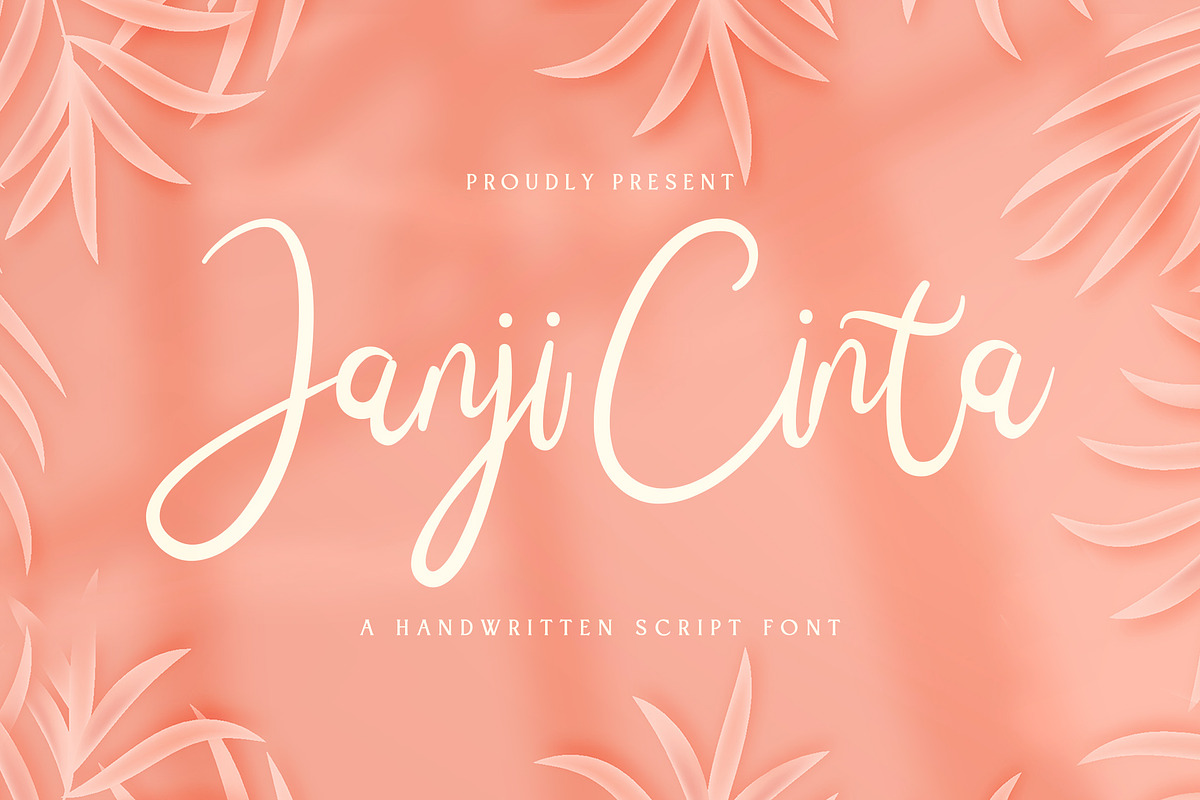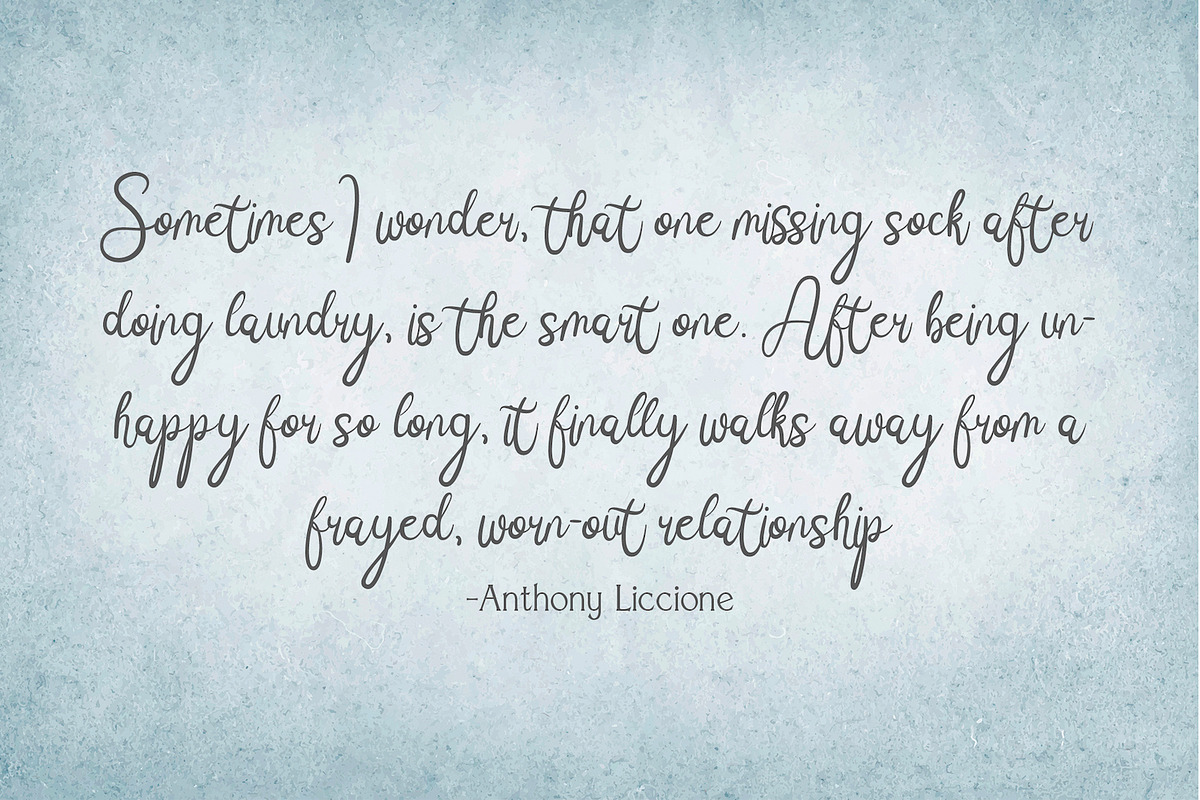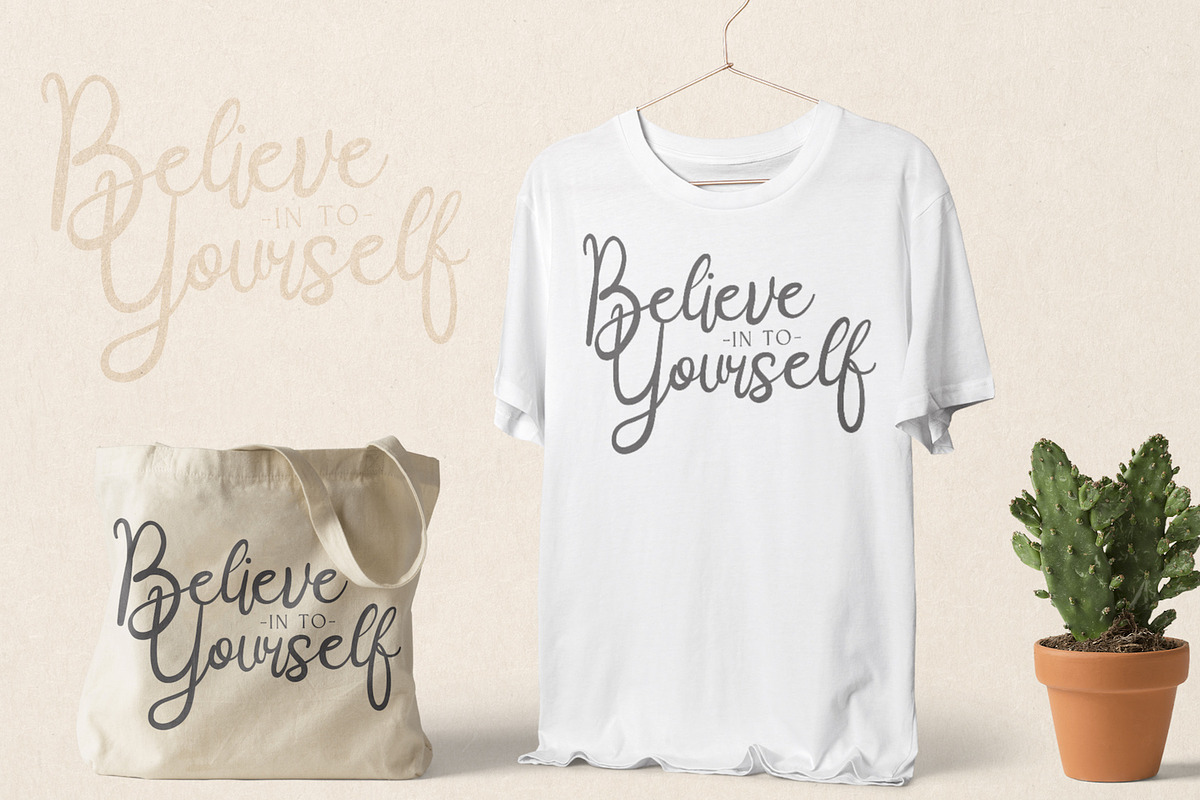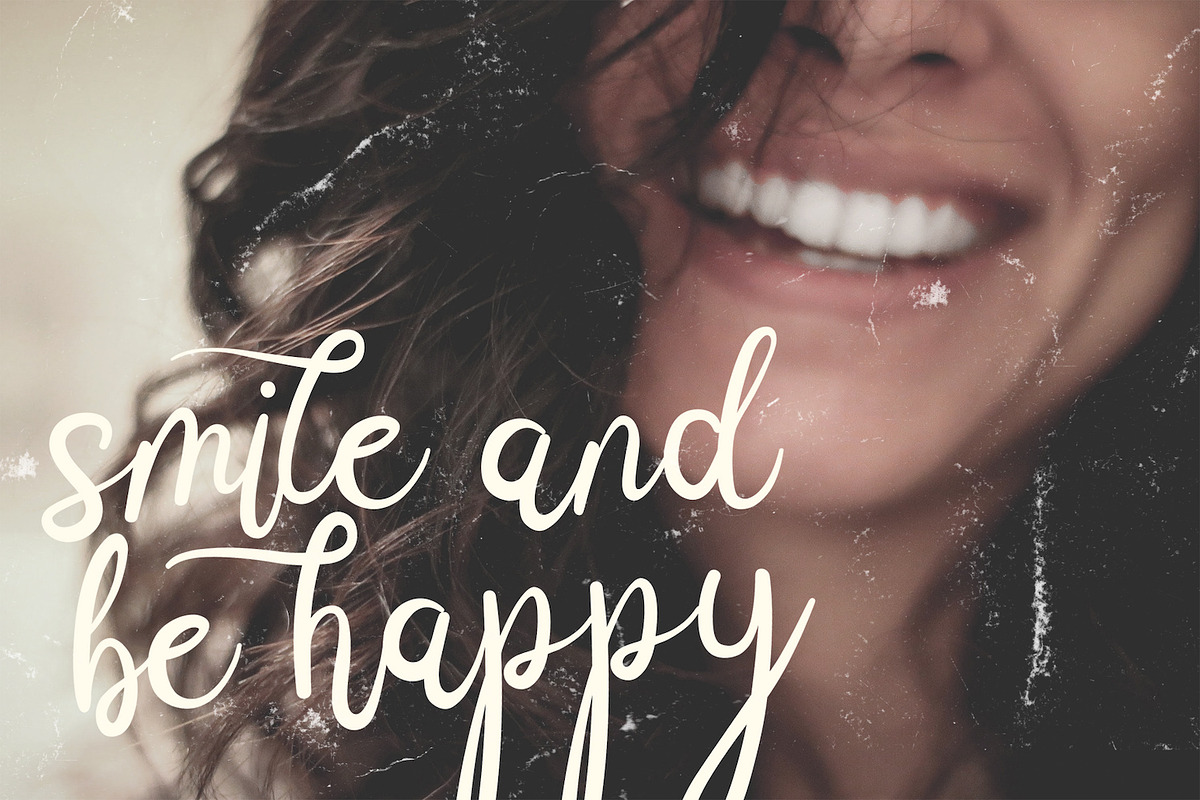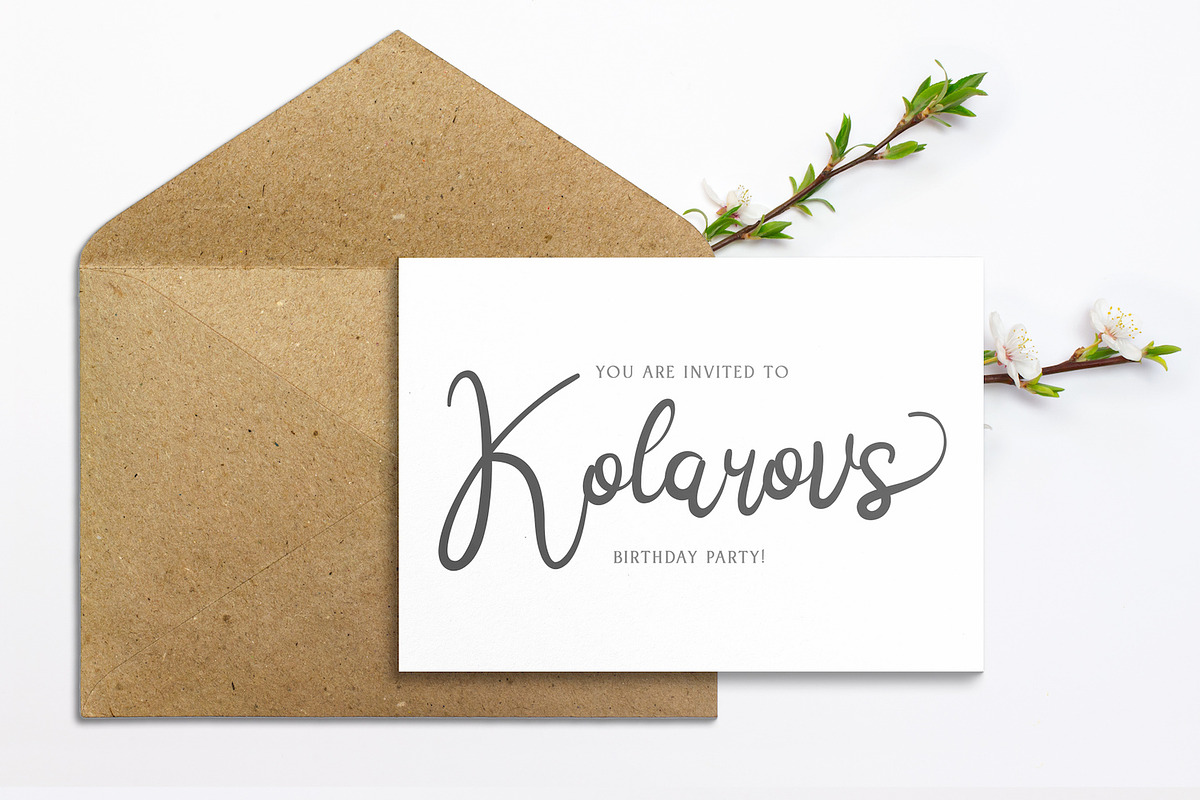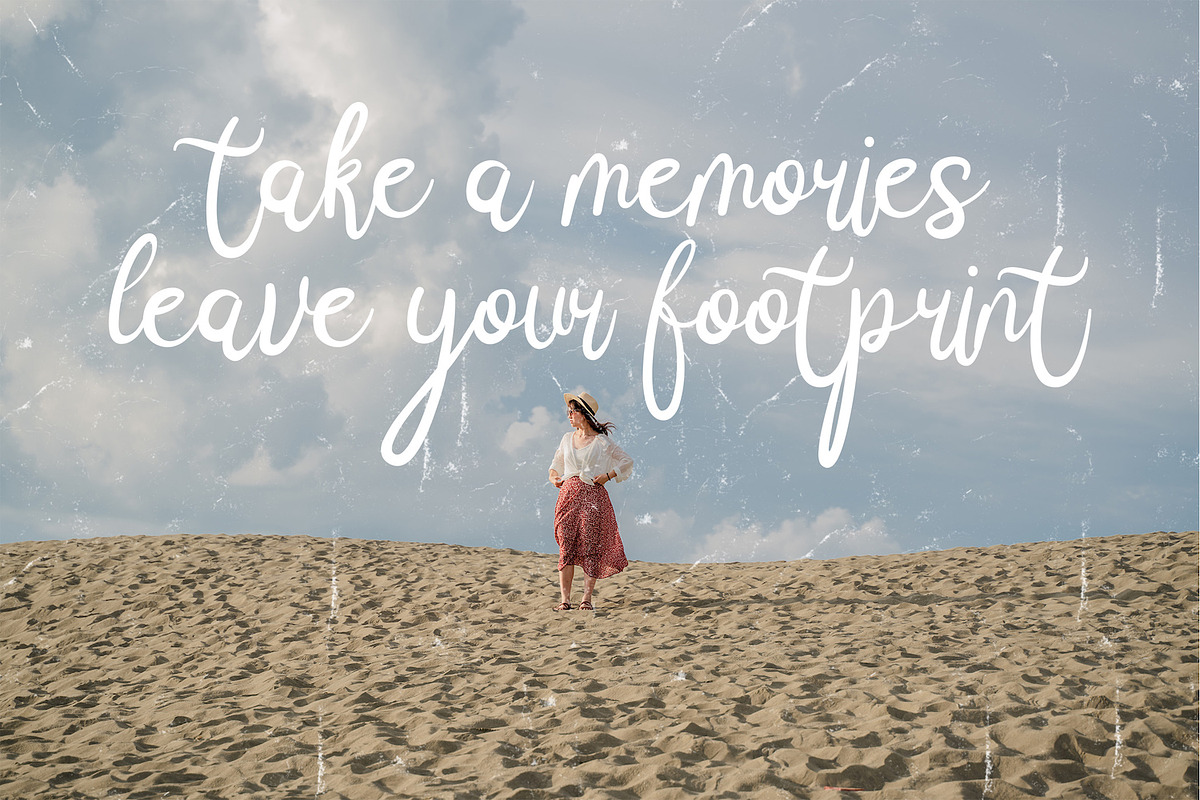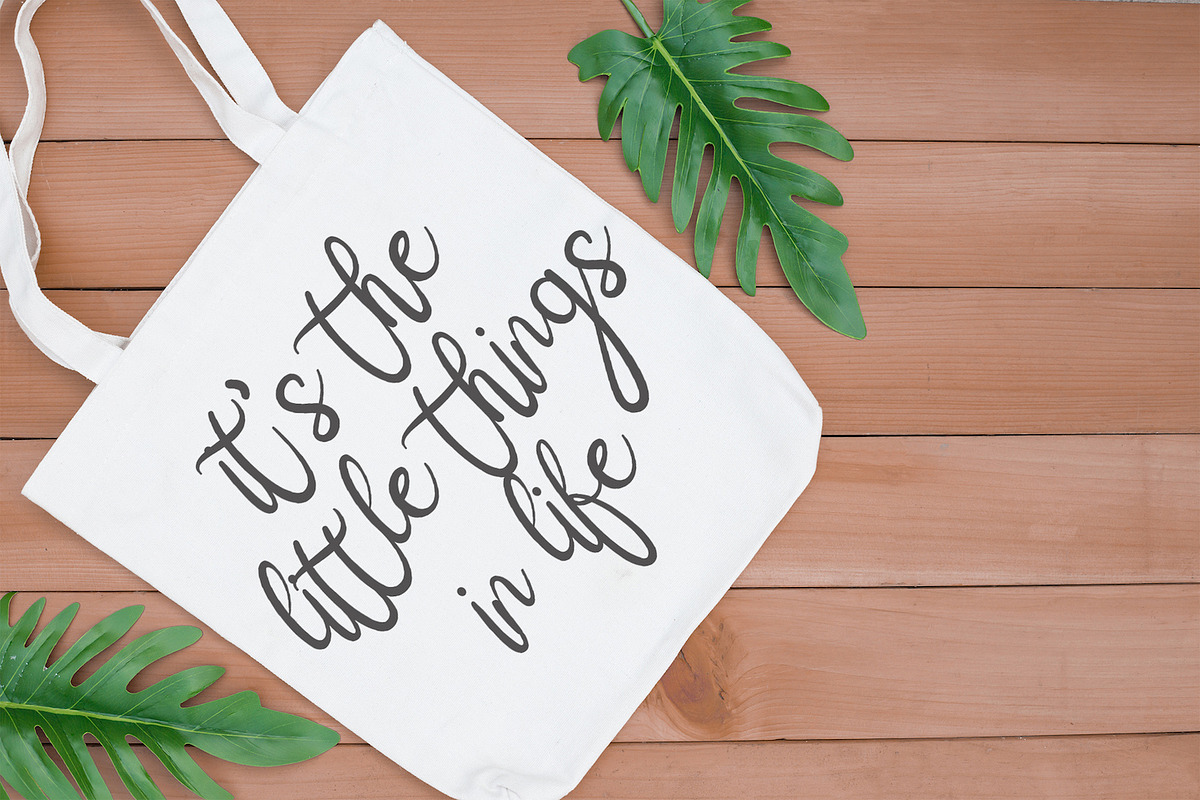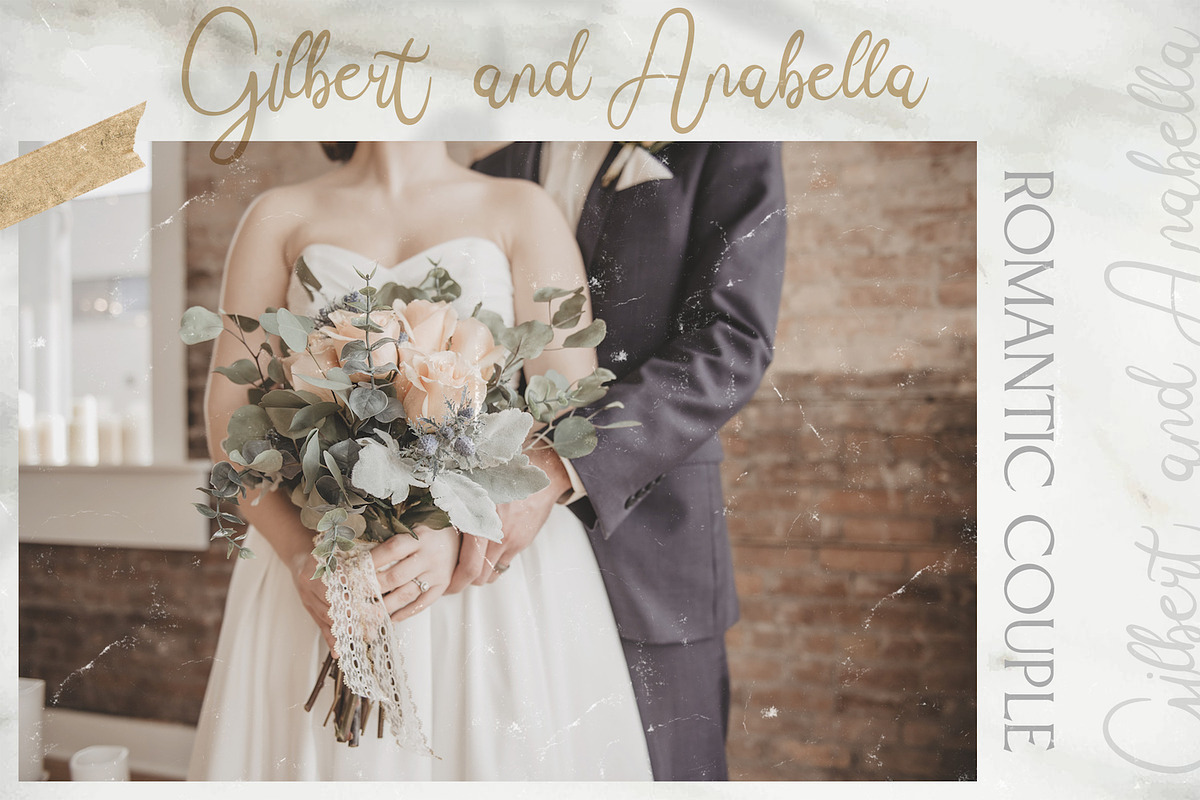
Janji Cinta - Handwritten Font
Introducing Janji Cinta - Handwritten Font
Janji Cinta is a lovely handwritten font, created with the help of a beautiful brush pen. Fall in love with its incredibly versatile style and use it to create gorgeous wedding invitations, beautiful stationary art, eye-catching social media posts, and much more!
Why Janji Cinta - Handwritten Font is worth a look
Janji Cinta - Handwritten Font by StringLabs fits naturally into Branding, posters, packaging, typography.